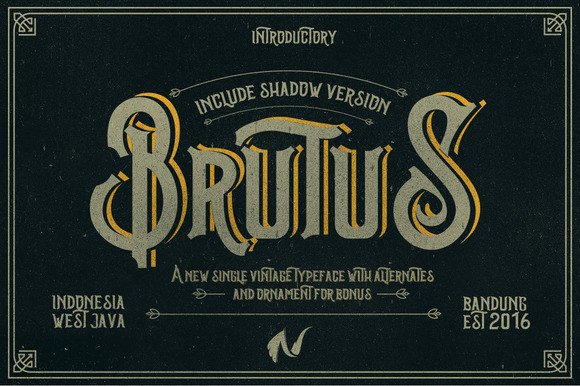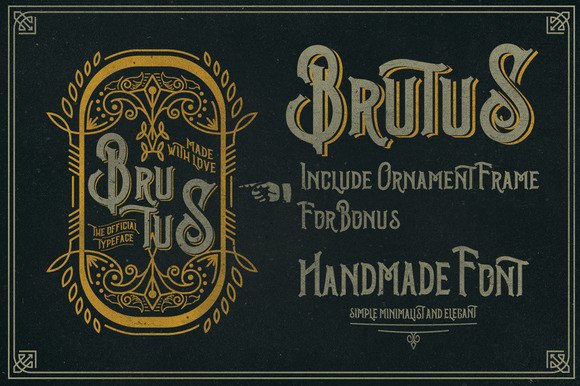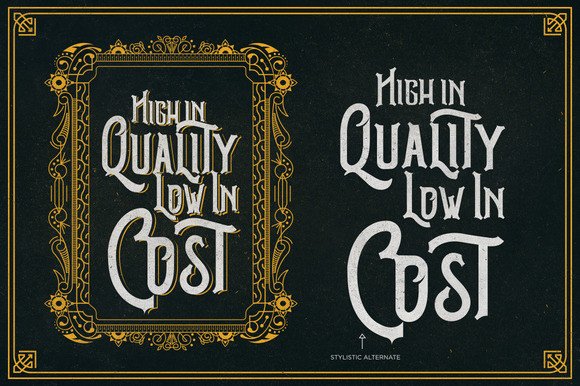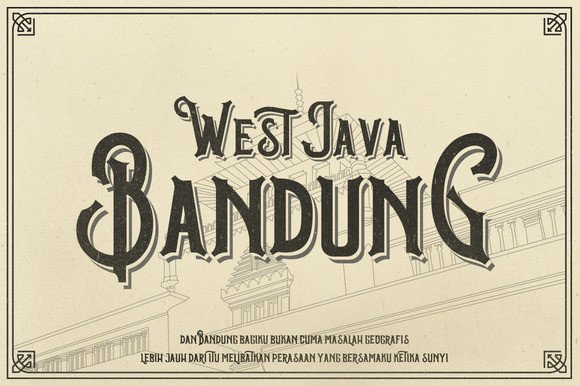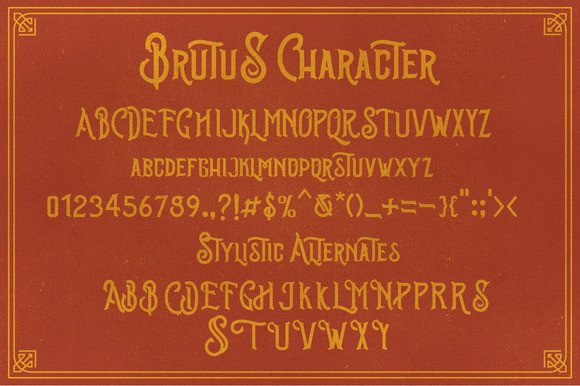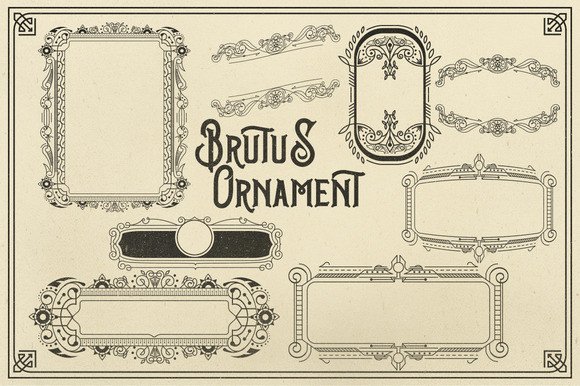
Introducing Brutus Font: A Timeless Combination of Modern, Vintage, and Victorian Styles
Are you a designer or crafter looking for a unique and versatile font to elevate your creative projects? Look no further than Brutus Font, a stunning combination of modern, vintage, and Victorian styles. This exceptional font is perfect for logos, posters, cafe branding, and a wide range of other applications.
A Unique Blend of Styles
Brutus Font boasts a distinctive blend of modern, vintage, and Victorian elements, making it a true standout in the world of typography. The font’s modern sensibilities are balanced by its vintage and Victorian roots, creating a timeless look that is both elegant and sophisticated.
With Brutus Font, you can add a touch of classic charm to your designs while still maintaining a fresh and contemporary feel. Whether you’re creating a logo, poster, or branding materials for a cafe or business, this font is sure to impress.
One of the most exciting features of Brutus Font is its incredible versatility. The font includes many alternates for uppercase letters, allowing you to experiment with different styles and create unique, customized designs.
In addition to its extensive alternate characters, Brutus Font also features highly detailed ornaments, adding an extra layer of depth and visual interest to your designs. Whether you’re looking to create a bold, eye-catching logo or a beautiful, intricate poster, this font has everything you need to bring your vision to life.
So, what can you use Brutus Font for? The possibilities are endless! Here are just a few ideas to get you started:
- Logos: Create a unique and memorable logo for your business or brand with Brutus Font’s distinctive style.
- Posters: Design stunning posters for events, promotions, or advertising campaigns that showcase your brand’s personality.
- Cafe Branding: Add a touch of elegance and sophistication to your cafe’s branding, menus, and packaging with Brutus Font.
- Stationery: Create beautiful, custom stationery for your business or personal use, including letterheads, invitations, and greeting cards.
- Digital Art: Use Brutus Font to add a touch of vintage charm to your digital art, including illustrations, graphics, and social media graphics.
Key Features of Brutus Font
Here are some of the key features that make Brutus Font so special:
- Combination of modern, vintage, and Victorian styles
- Many alternates for uppercase letters
- Highly detailed ornaments
- Perfect for logos, posters, cafe branding, and more
| Font Name | Brutus Font |
| Author | ndroadvertising |
If you’re looking for a unique and versatile font to elevate your designs, look no further than Brutus Font. With its timeless combination of modern, vintage, and Victorian styles, this font is perfect for a wide range of creative projects. Whether you’re a designer, crafter, or DIY enthusiast, Brutus Font is sure to become a favorite in your toolkit.